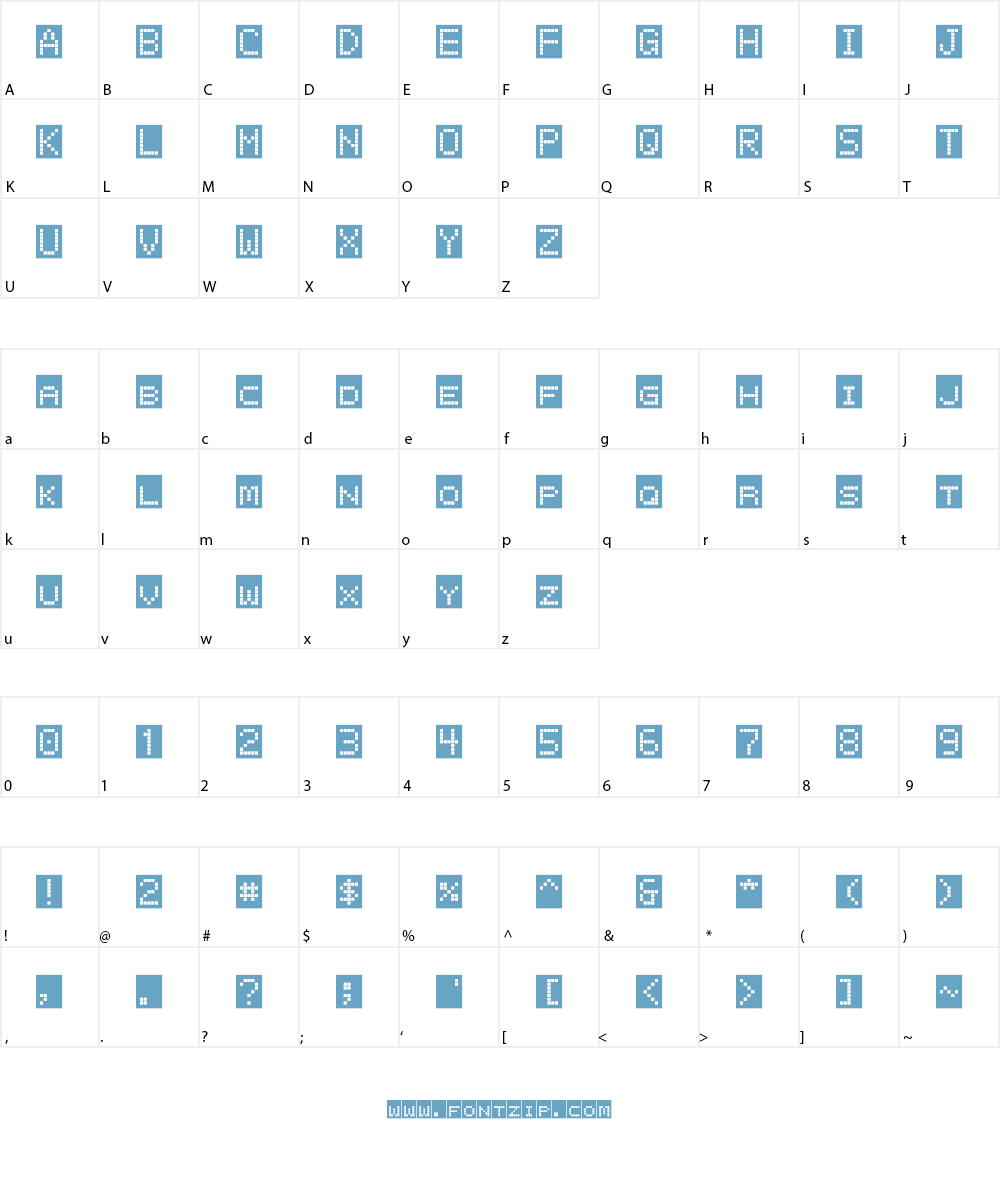
A near-total redesign of Erbos Draco Monospaced with smallcaps. Still monospaced though.
For a more traditional scoreboard look try Erbos Draco Monospaced!